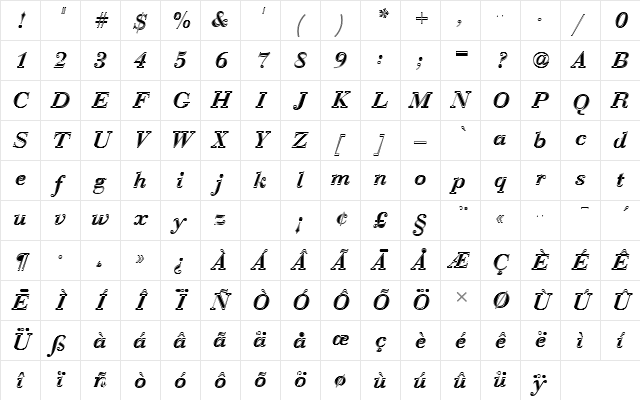
Complete BauerBodDDemBolItaIn1 Regular glyph index. Displaying only characters natively supported by BauerBodDDemBolItaIn1 Regular font.
BauerBodDDemBolItaIn1 is a composed and adaptable typeface that performs quietly and consistently across a wide range of design contexts.